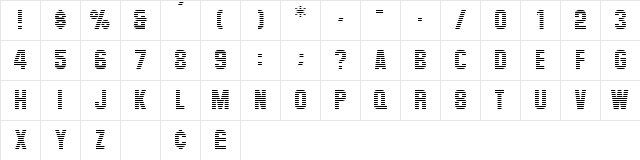
Levelor Display Caps SSi Regular
Design Context for Levelor Display Caps SSi Typeface
Levelor Display Caps SSi brings ornamental detail and strong personality to headlines and identities, where visual impact matters more than quiet functionality.
Font Pairing: Pair with a clean neutral sans-serif for body copy to let Levelor Display Caps SSi's character lead without overwhelming the composition.
Pro Tip: Treat Levelor Display Caps SSi as the centrepiece of your typographic hierarchy. One strong heading set in a decorative face can carry an entire layout.